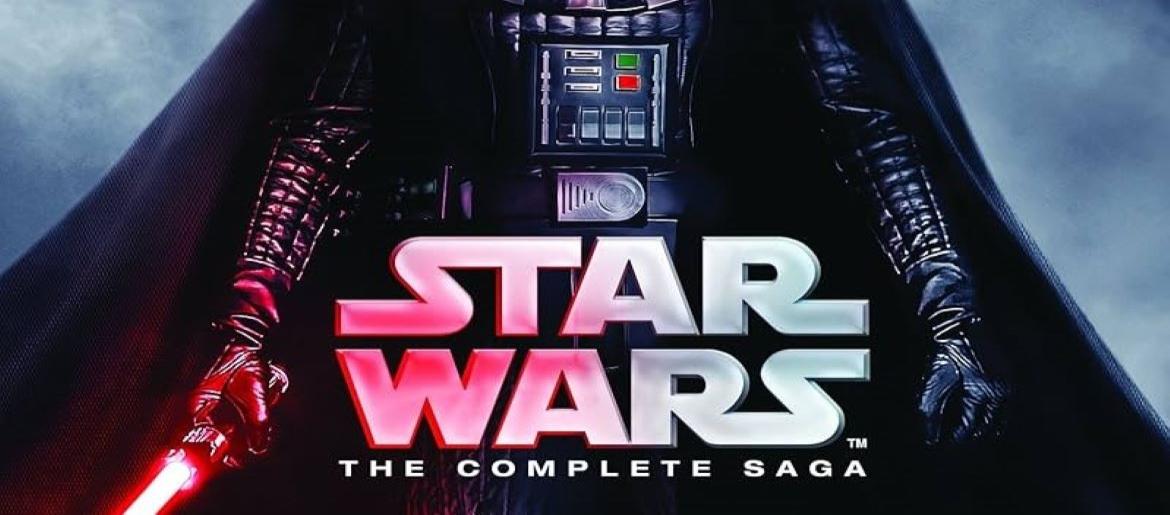
Star Wars Font
The Star Wars Font stands as one of the most legendary and easily recognizable typefaces in cinematic history. Ever since the first film debuted in 1977, the bold yellow letters of the iconic opening crawl and the distinctive logo have become inseparable from the epic saga itself. When fans think of the Star Wars font, they instantly recall lightsabers clashing, starships soaring, and timeless tales of heroes and villains across the galaxy.
The Star Wars logo’s design features bold, geometric lettering that feels both futuristic and timeless—a perfect match for the saga’s mix of science fiction and mythic storytelling. Designers and fans alike use the Star Wars font to craft posters, artwork, and themed designs that capture the thrilling essence of this beloved universe.
While the movies never had an officially released font, several fan-made versions successfully recreate the signature look. The Star Jedi Font is among the most popular, closely replicating the style of the franchise logo. Another favorite, the Death Star Font, offers a similar aesthetic with a unique twist. Both typefaces, created by Boba Fonts and Sharkshock, allow creators to bring that unmistakable Star Wars energy into their own projects.
The enduring fame of the Star Wars font highlights how typography can shape a film’s legacy. Much like the saga itself, this font continues to symbolize adventure, imagination, and storytelling that spans generations.